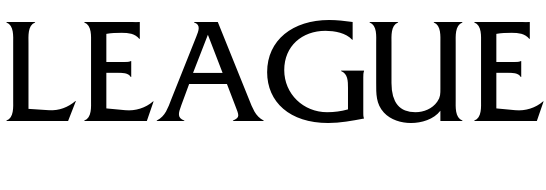
League of Legends Font
Fonts in UseLeague of Legends (LoL) is a multiplayer online battle arena (MOBA) video game developed and published by Riot Games. The game is known for its complex gameplay and deep strategy, as well as its vibrant and ever-evolving community.
The font used in the League of Legends logo is custom designed but the closest font we found is League Font, which is a 100% free font created by FontGet.
The older version of League of Legends logo was most likely based off Friz Quadrata, a glyphic serif typeface designed by Ernst Friz and Victor Caruso in 1973.